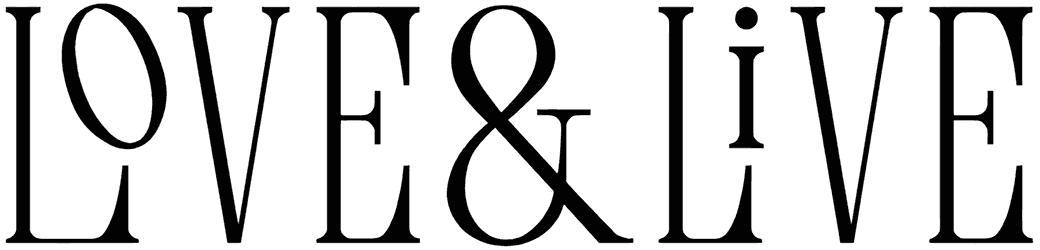
Love And Live Font
By having a suitable choice of style that can be used for stylish and original designs, you can portray your ideas well. This serif font with its antique and salient face would be a captivating option for lots of layouts with any subject. Even without lowercase letters support, Love And Live will serve as a nice showcase for many designs, from branding to movie posters.